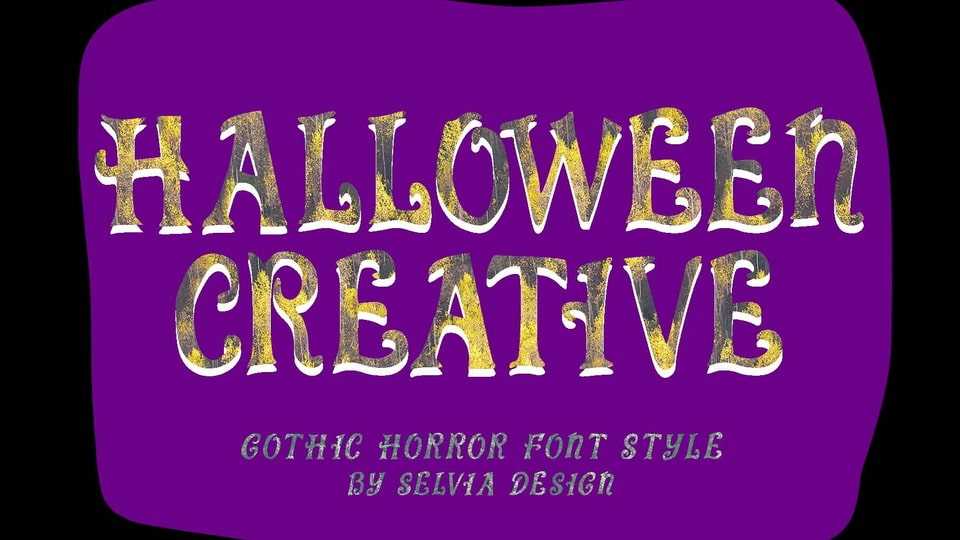
Download Halloween Creative font, a bold and eerie display typeface that brings a splash of vintage fright to your designs with its distressed textures, spooky curves, and hand-drawn look.
Designer: Selvia Design